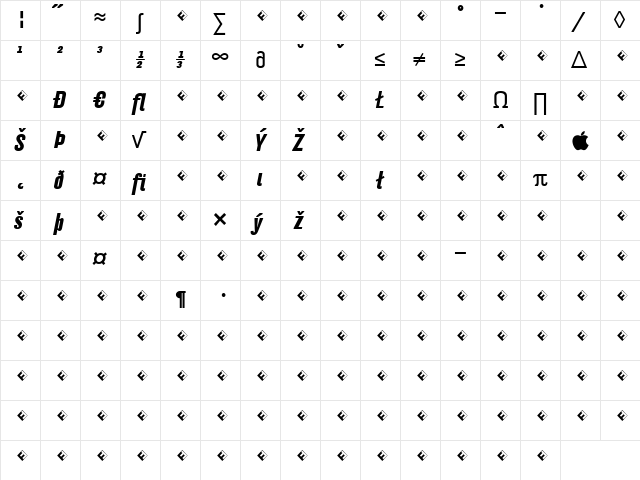
Hydra-BoldItalicExpert Regular Font Preview
| Designer | Silvio Napoleone |
Design Context for Hydra-BoldItalicExpert Typeface
Hydra-BoldItalicExpert is a composed and adaptable typeface that performs quietly and consistently across a wide range of design contexts. The slanted form adds forward momentum and visual energy. The heavy weight commands attention and anchors typographic hierarchies.